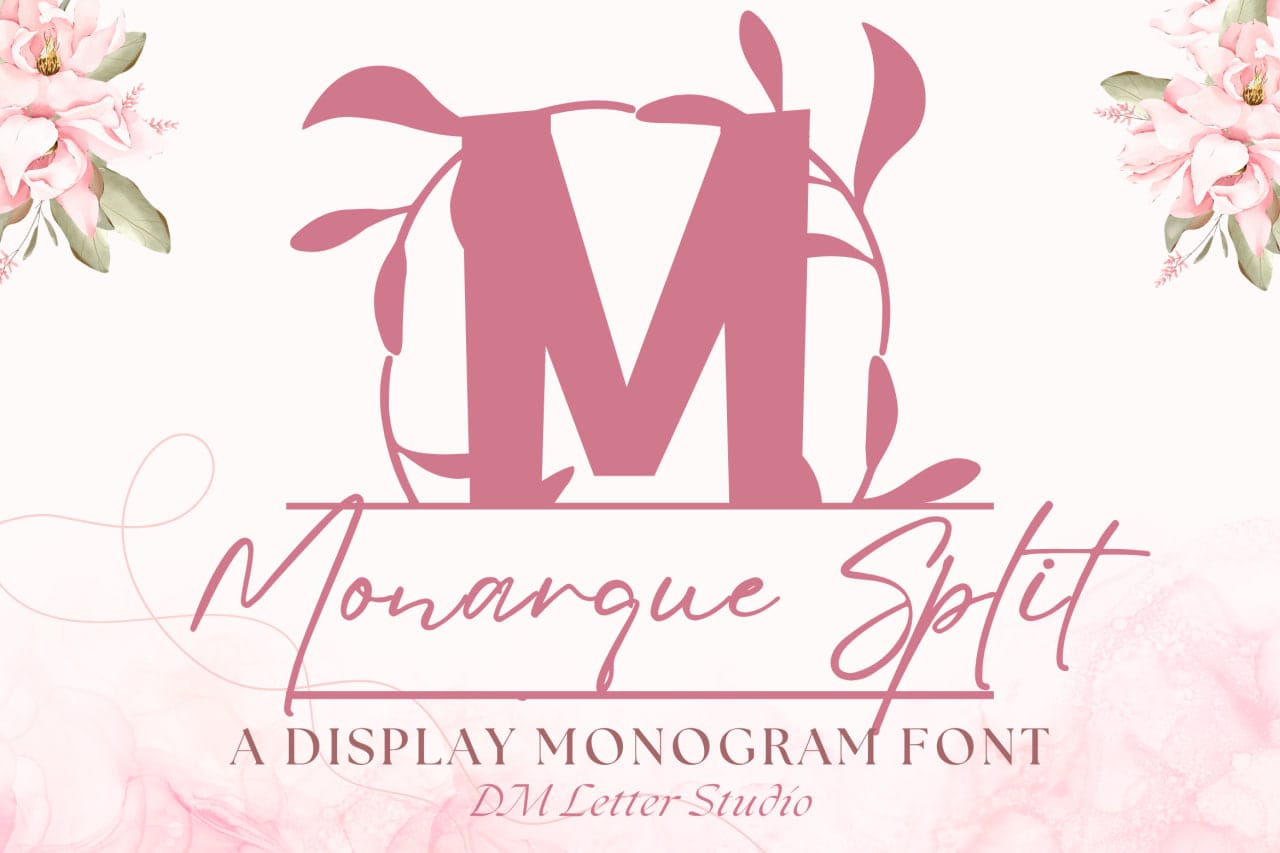
Meet Monarque Split Monogram, the Monogram Font
Monarque Split Monogram Font turns initials into bold and elegant designs with a royal feel. A clean split line runs through the center of each letter. This space works well for names, dates, or short words. Because the shapes are strong and open, the font stays easy to read at small sizes. At the same time, it holds a confident presence on large prints. As a result, Monarque Split Monogram is ideal for weddings, luxury branding, stationery, and premium keepsake projects.
Where this split monogram font shines
Use one, two, or three initials for logos, invitations, menus, place cards, and seals. In the center split, you can add family names, wedding dates, or locations. Because the layout is symmetrical, designs feel formal and balanced. For example, you can place it inside crests, shields, circles, or elegant frames. In addition, the font keeps a consistent look across invitations, signage, boxes, ribbons, and gift tags. Whether used on small labels or large displays, it scales smoothly and keeps its regal presence.
Design tips for Monarque Split Monogram
Keep initials bold and allow enough space around them. This helps the split detail stand out. Pair the monogram with a classic serif or a clean sans serif for supporting text. Also, thick cardstock, textured paper, and metallic foils enhance the regal style. Because the design is already strong, keep wording short. That way, the monogram remains the main focus on seals, packaging, and statement pieces.
Center split feature for names or dates
Select stylistic alternates for key letters
Curves optimized for foil, letterpress, engraving, laser cutting, and clean vinyl paths
Why creators choose this split monogram font
You want a monogram that feels bold, regal, and easy to use. At the same time, you need clear results and fast layouts. That is why Monarque Split Monogram Font is a strong choice. It delivers classic authority with simple setup. In the end, your designs look polished across print, events, and packaging.